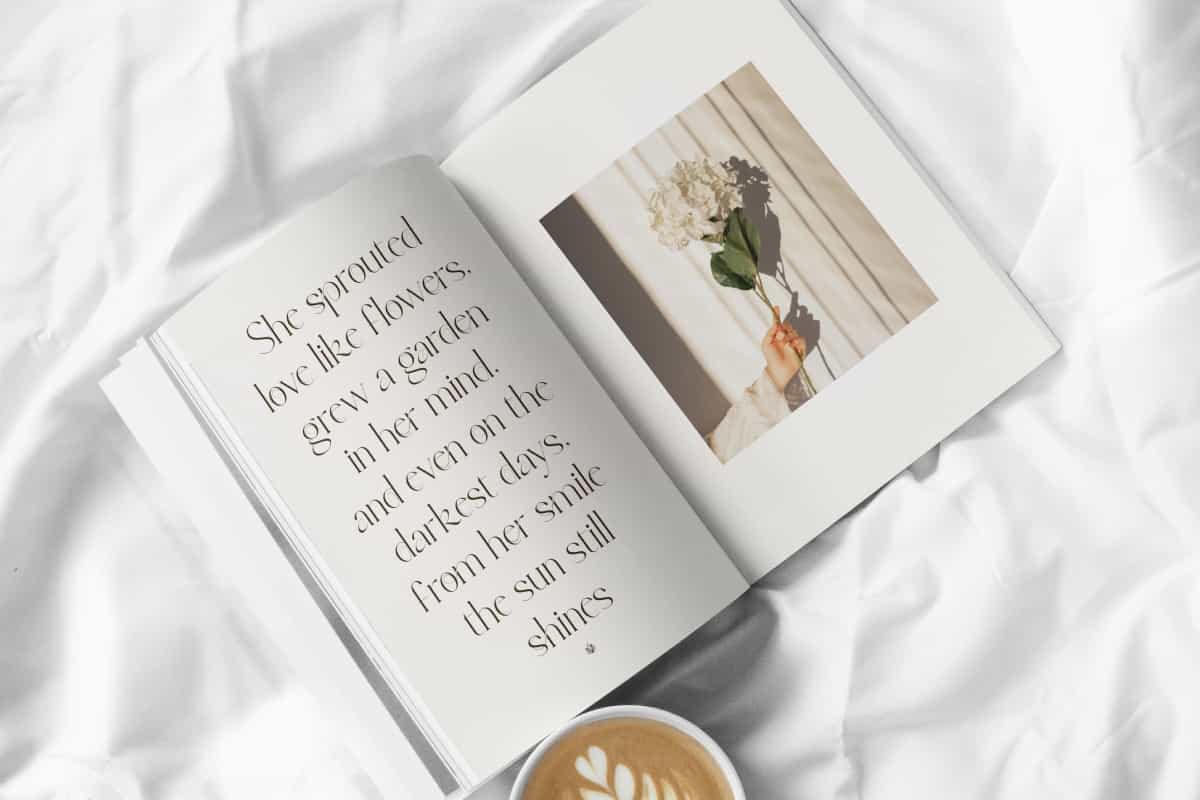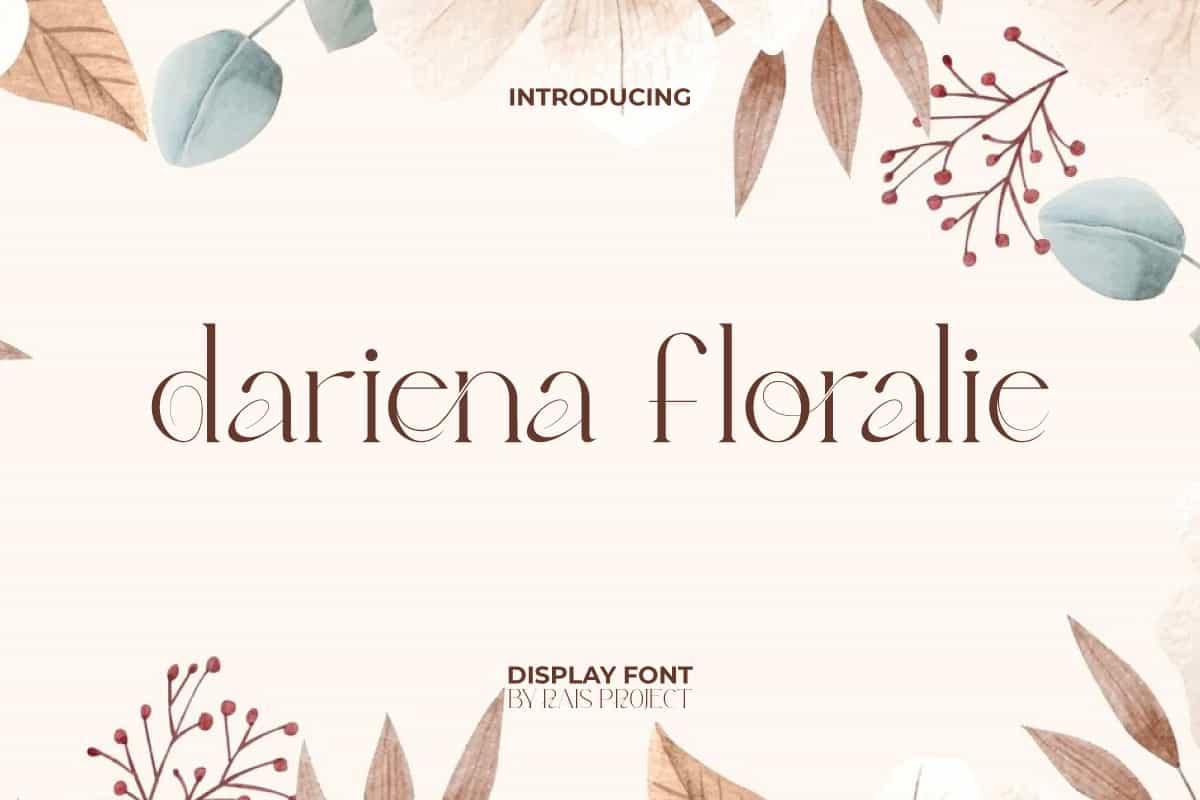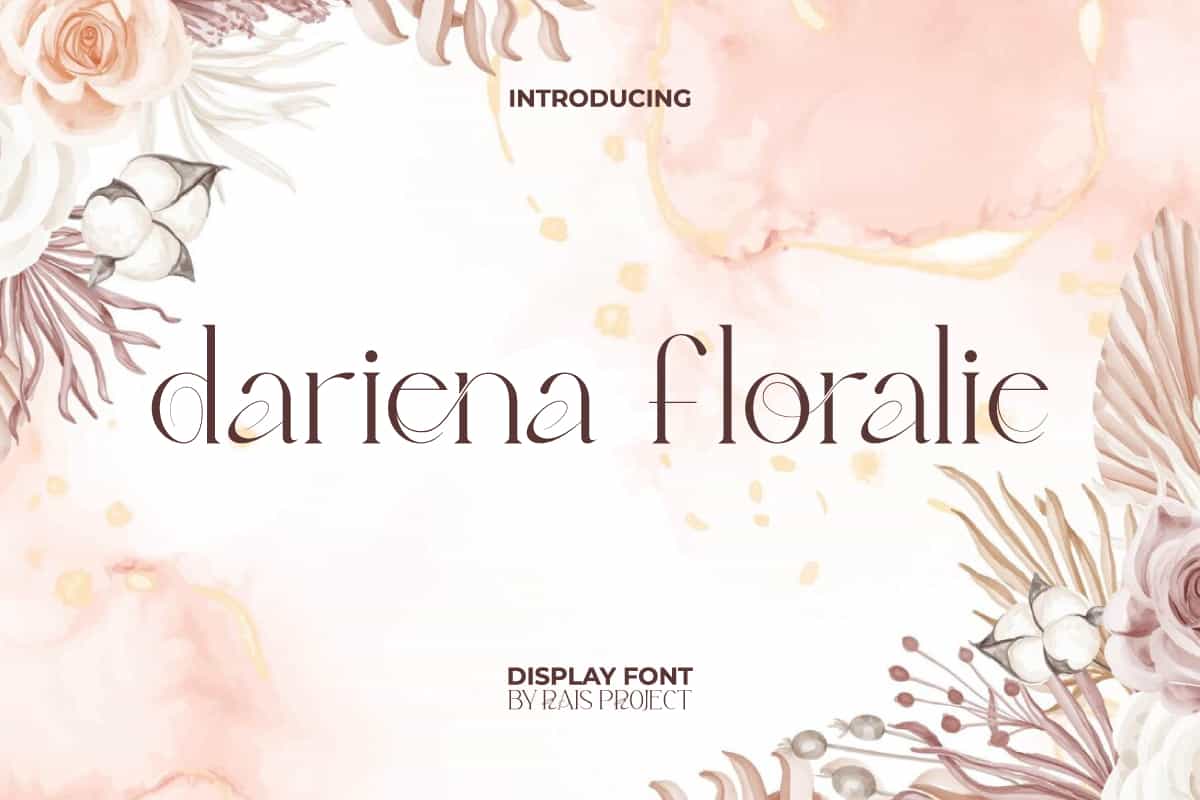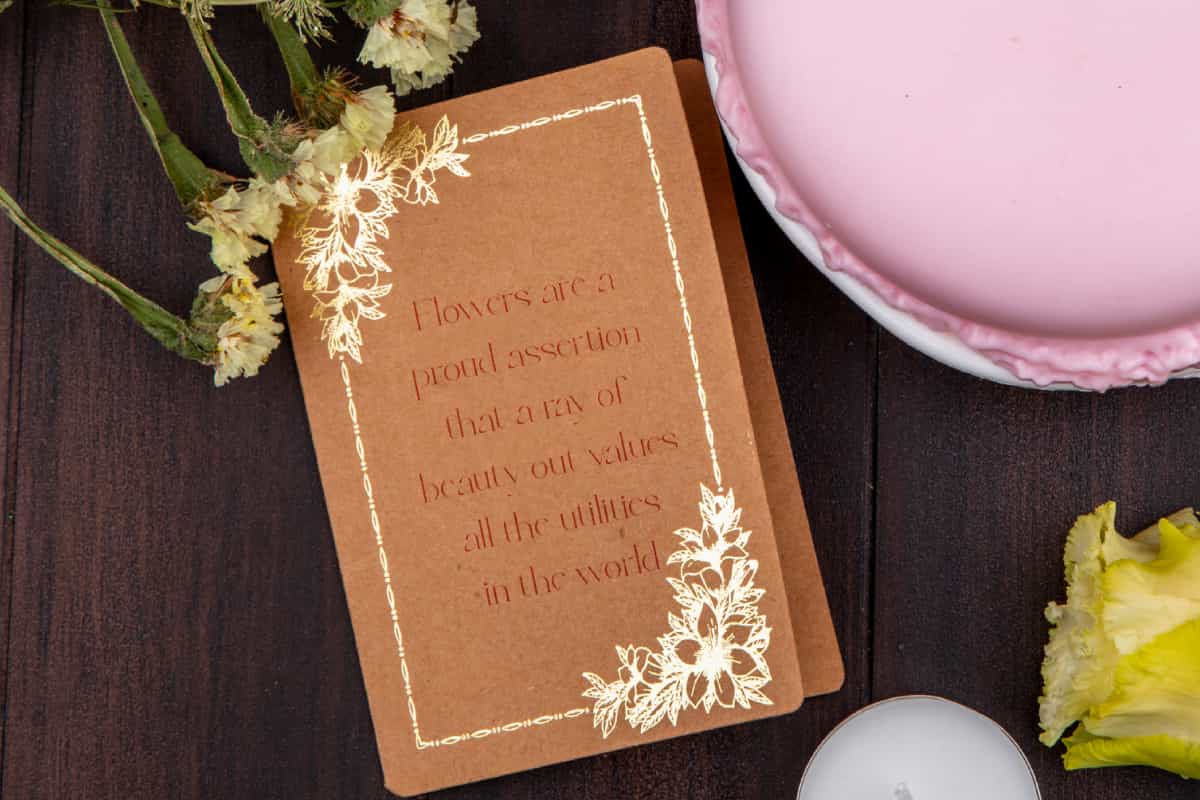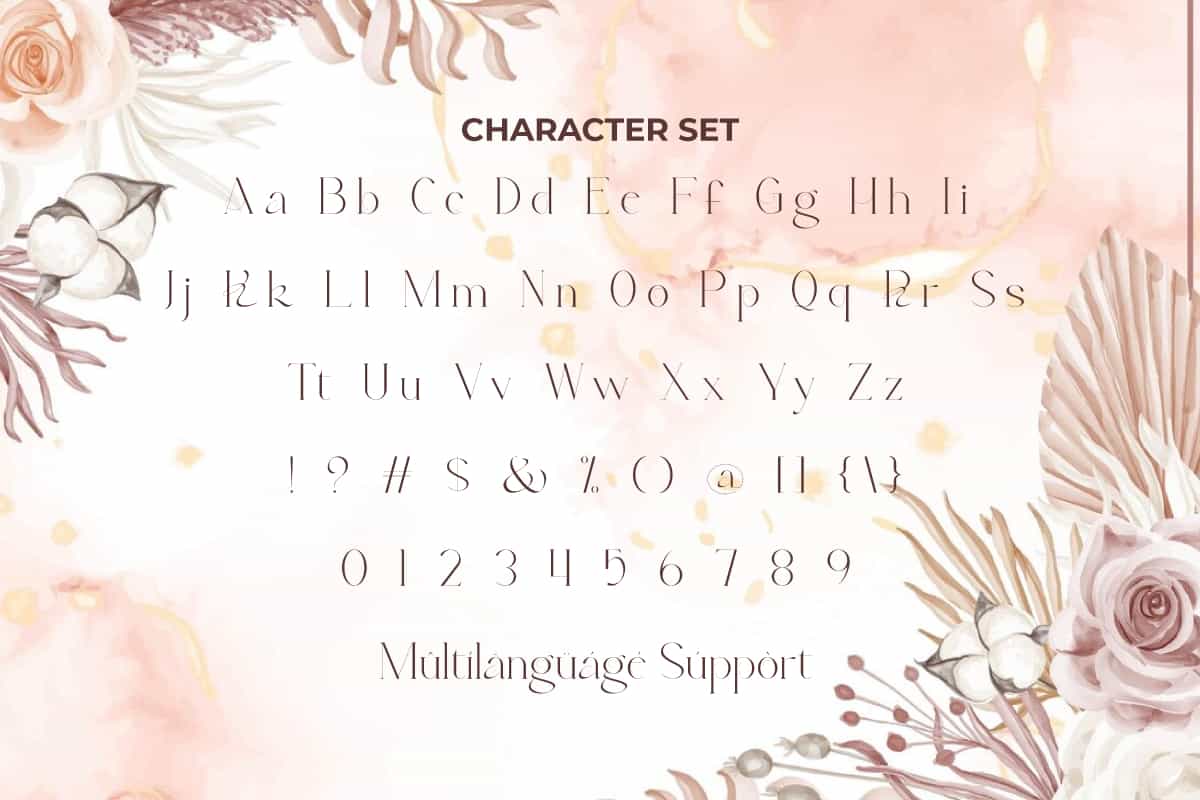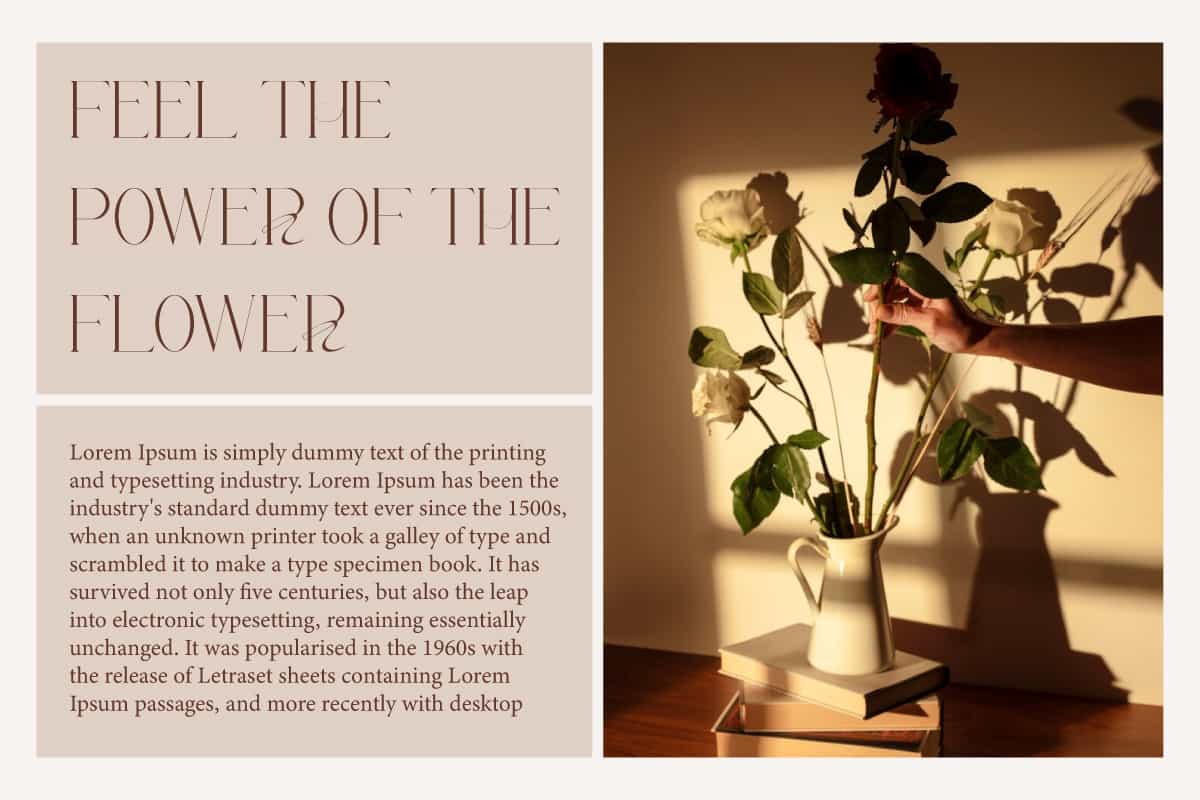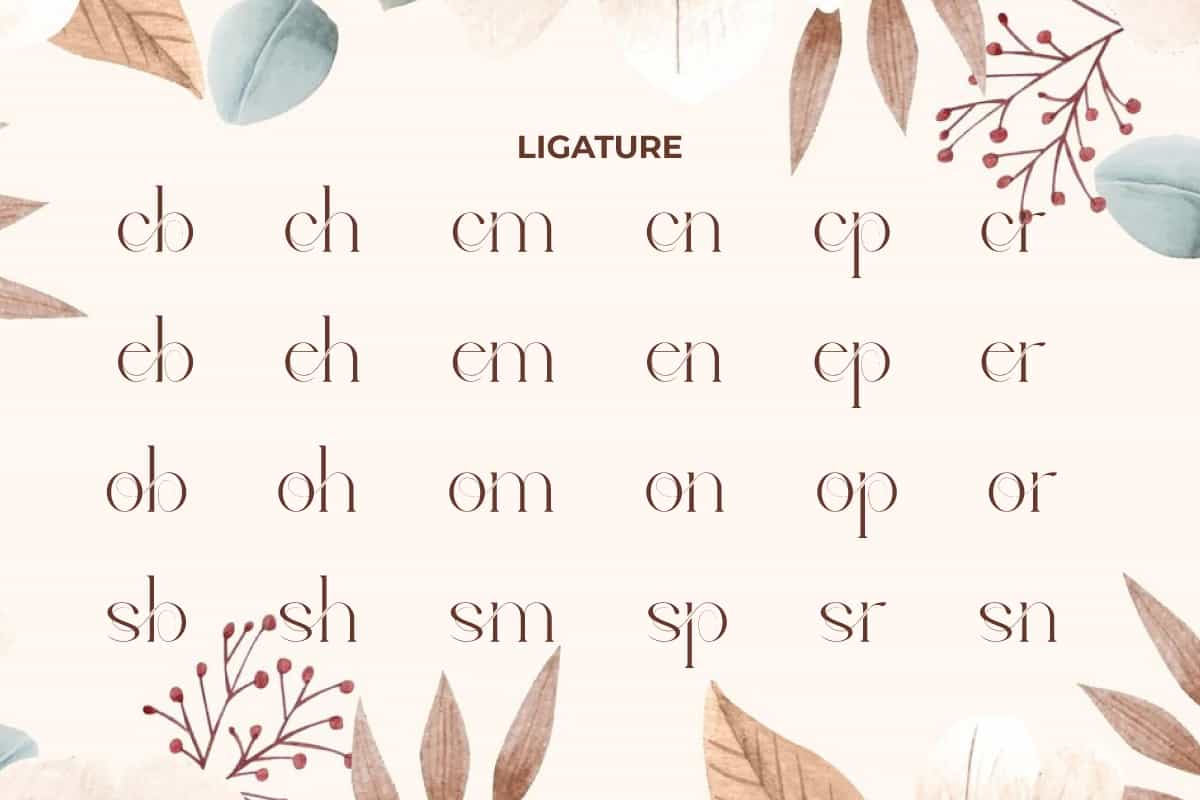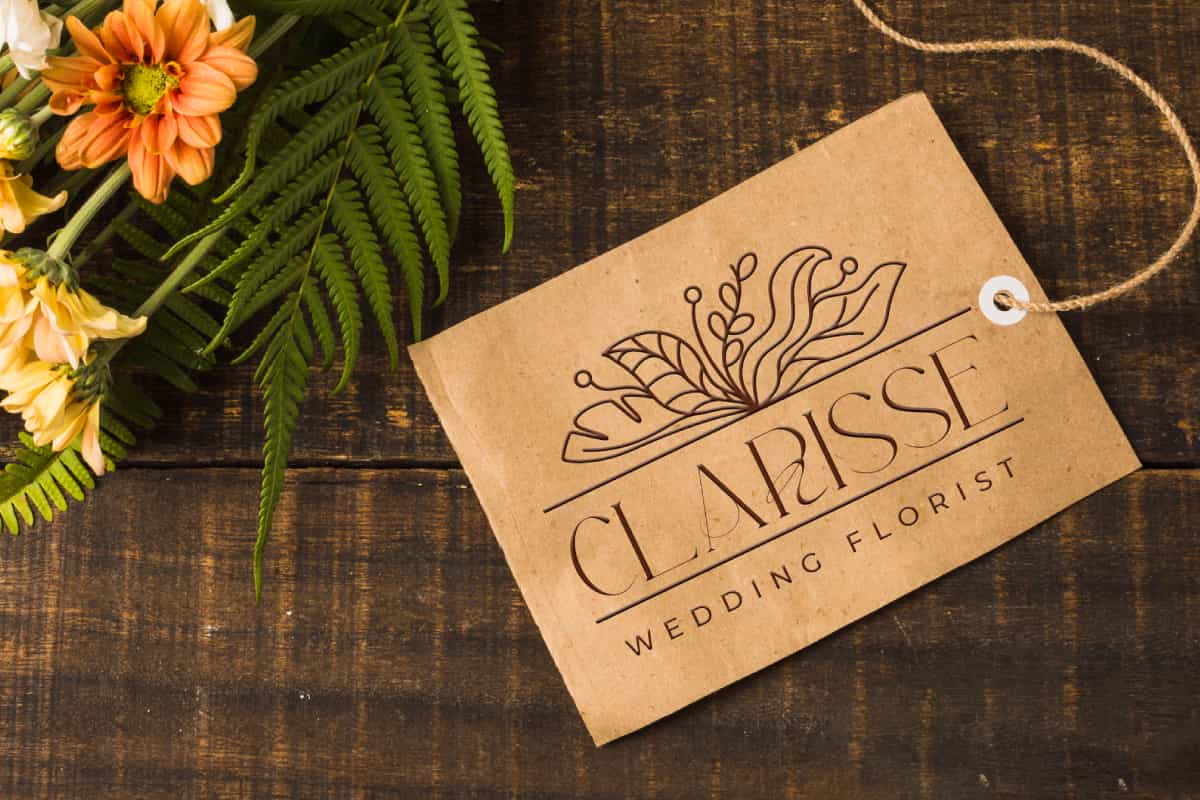
Dariena Floralie Font
Dariena Floralie Font is an adorable stunning beautiful serif display font. Try add this font to your design and make your it even more beautiful!
Dariena Floralie Font is an adorable stunning aesthetic serif display font, created by RaisProject. It will look good on invitation, stationery, poster, custom design, product packaging, quotes, signage, brand image, advertisement, label, marketing material, website page, and more! You can see the demo font below, input any word you want so you can see what it looks like:
Secret Action Font includes a full set of ALL CAPS for Uppercase and Lowercase Letters, Numerals, large range of Punctuation, and Ligature Character. This modern font also contain Ligature character that will be suitable for various industries, such as fashion, jewelry, cafe, event or wedding organizer, photography, printing, publishing, etc. What you get: